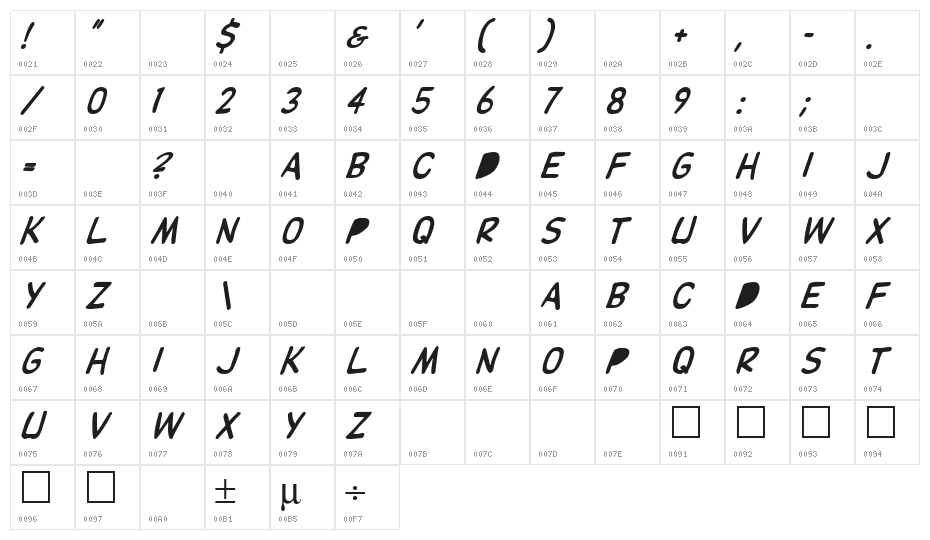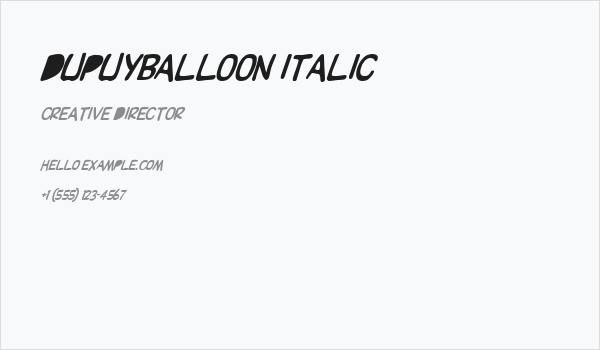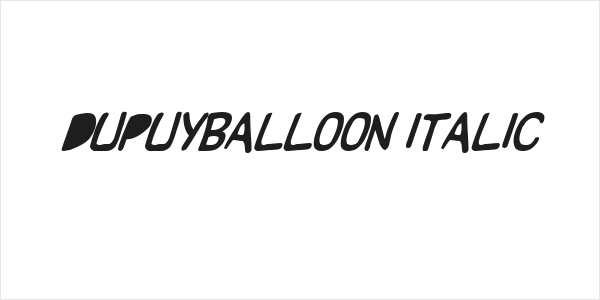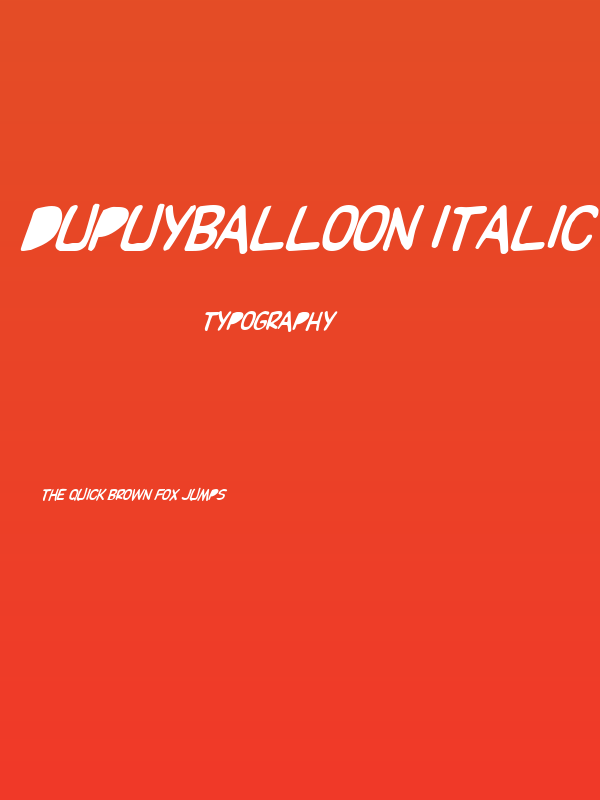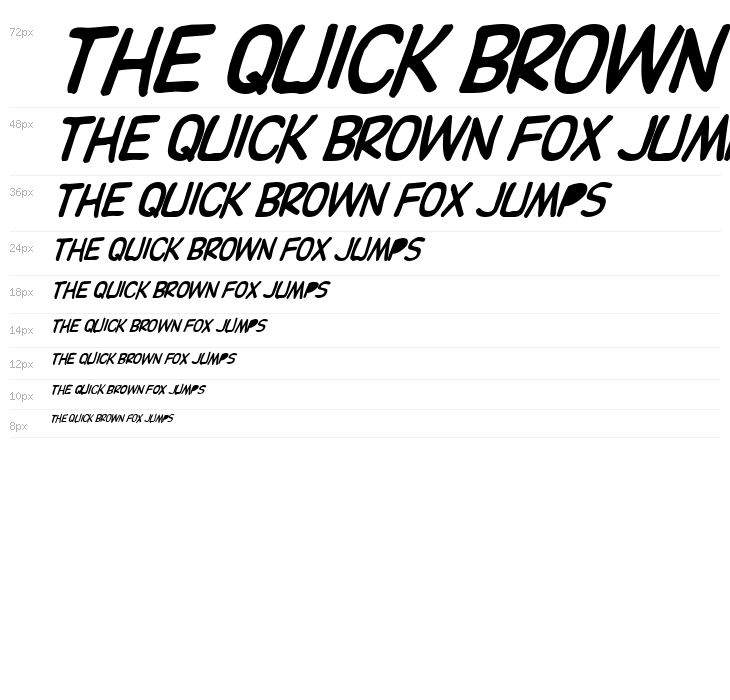
DupuyBALloon Italic Font
DupuyBALloon Italic Description
This font features a playful and dynamic style with a handwritten appearance. The characters are bold and slightly italicized, giving them a sense of movement and energy. The strokes are smooth and rounded, contributing to a friendly and approachable look. The uppercase and lowercase letters maintain a consistent style, with a slight slant that enhances the casual feel. Numbers and special characters are well-integrated, matching the overall aesthetic. The font's boldness and unique style make it suitable for creative and informal projects.
| Use Case | Logos, Headlines, Informal Text |
| Proposed Projects | Ideal for greeting cards, children's books, playful branding, and casual invitations. |